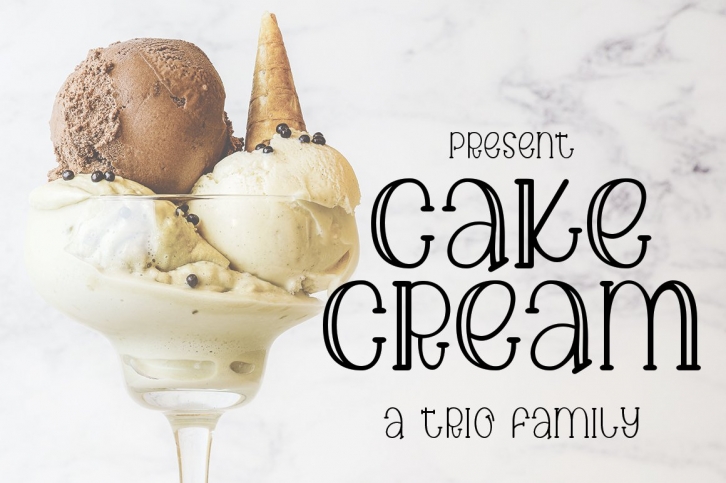
Cake cream is a beautiful font that was designed by HD font studios. It's a great choice for designers and creatives who need such a font. It was released on September 25, 2020 and the file size is 21.4 MB. Cake cream may give a more youthful, expressive and casual look to your project. It is a very beautiful, refined, elegant, and high-quality font.